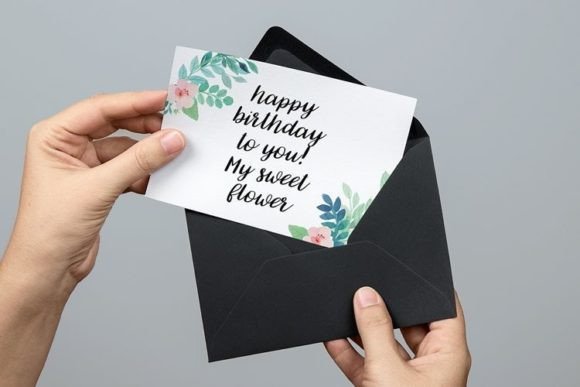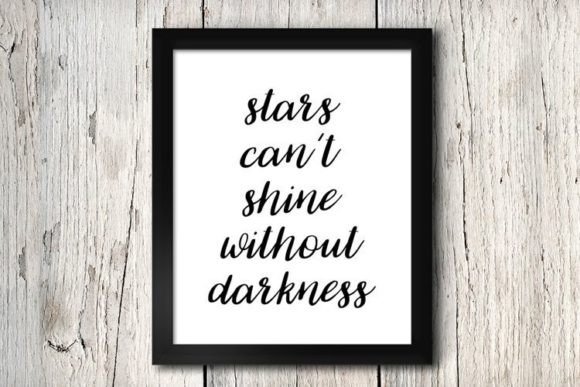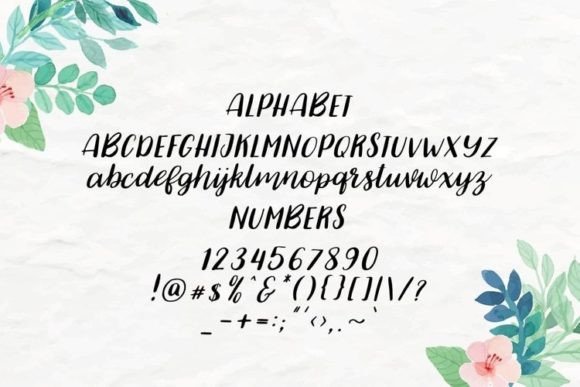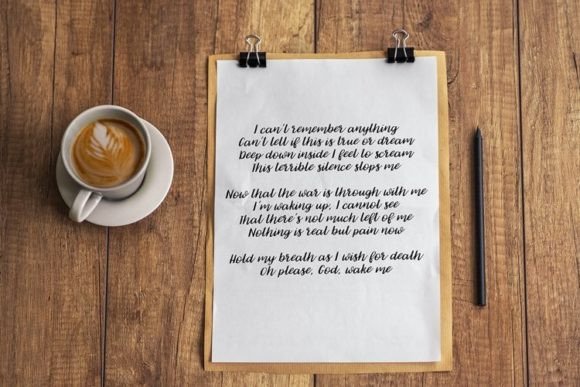
Jasmine Font
About Jasmine Font
**Jasmine** is a font that embodies sweetness and loveliness in its every curve and stroke. Its distinct and timeless style makes it a standout choice for various design projects, captivating the hearts of viewers with its charm. By incorporating Jasmine into your designs, you have the opportunity to create spectacular and visually stunning creations.
One of the defining features of Jasmine is its sweetness. The font’s soft and graceful letterforms create a sense of delicacy and tenderness, evoking feelings of warmth and affection. Its lovely script style adds a touch of romance and intimacy to any text, making it ideal for projects related to love, weddings, and heartfelt expressions. Jasmine’s sweetness enhances the emotional impact of your messages, making them more touching and endearing to the audience.
Jasmine’s distinct and timeless style adds a touch of elegance to your designs. Its well-crafted characters and flowing lines create a harmonious and visually appealing text. This timeless quality ensures that Jasmine remains relevant and stylish across different design contexts, making it suitable for a wide range of applications, including logos, branding, invitations, posters, and more. Whether used in modern or classic designs, Jasmine adapts seamlessly, adding a touch of sophistication to your compositions.
The font’s versatility allows it to be paired with various design elements, making it a valuable asset for designers seeking flexibility in their creative projects. Whether combined with illustrations, floral motifs, or elegant backgrounds, Jasmine complements other elements beautifully, enhancing the overall visual impact of your designs.
In summary, Jasmine is a sweet and lovely script font that captures the essence of romance and elegance. Its distinct and timeless style, combined with its versatility, makes it a valuable choice for designers looking to create spectacular and emotionally resonant designs. Fall in love with the enchanting charm of Jasmine and let it infuse your projects with its delightful and timeless presence.